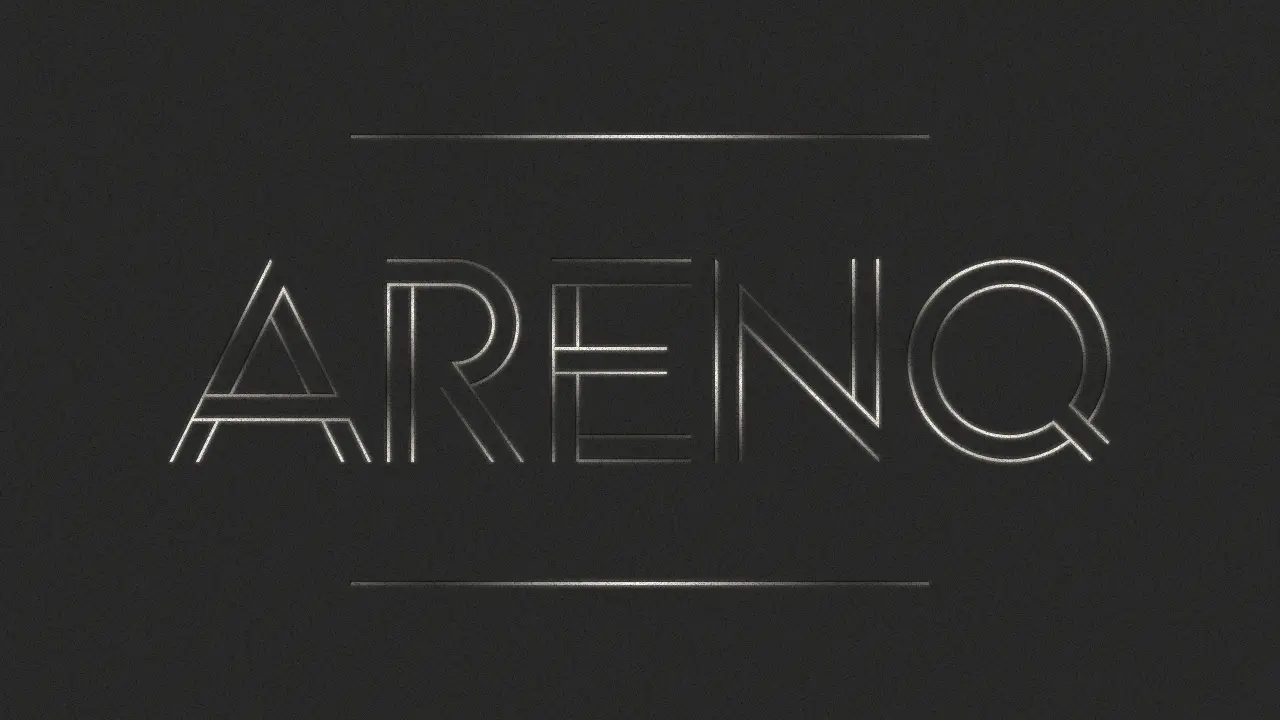
The Arenq font family may be ideal for you if you enjoy working on an artistic design project. The lively, expressive look of this typeface, which was created by Paulo R., makes it ideal for Logos and Branding,Arenq shines when used for headlines, titles, and subheadings in print or digital media. Its unique style immediately draws the eye and adds a touch of sophistication to the overall design. Its "classy" and "elegant" attributes make it particularly well-suited for fashion magazines, websites, and social media graphics. and other light-hearted visual projects.
Regular are the one primary font styles of the Arenq font family. You may build dynamic, visually appealing text layouts with the distinct flair that each style offers. With crisp, readable lines and a relaxed tone.